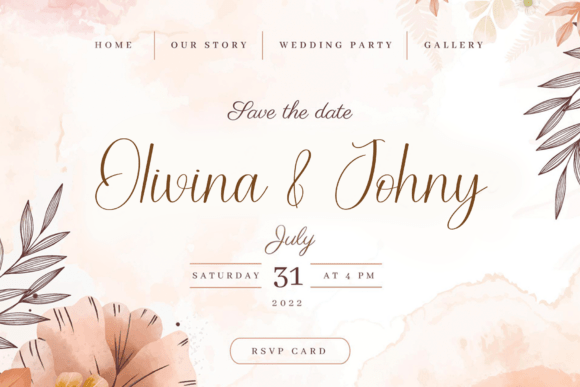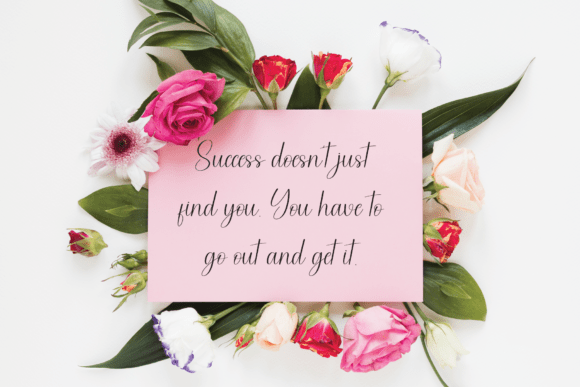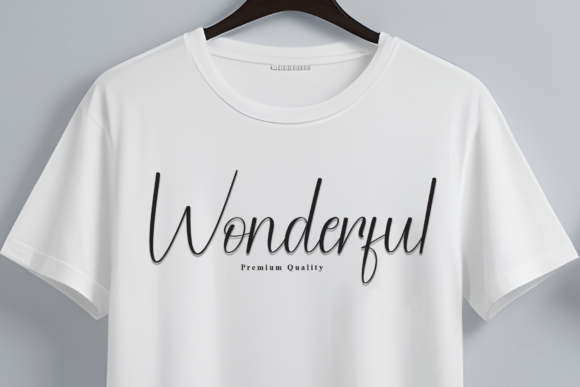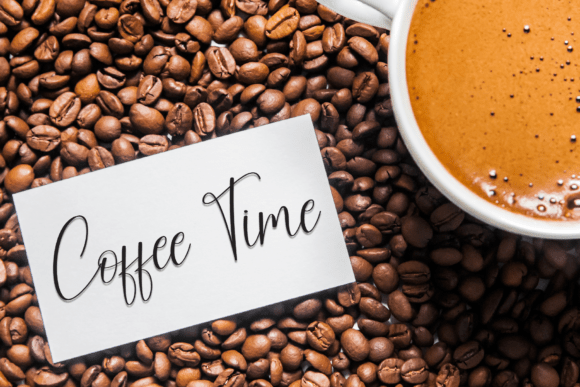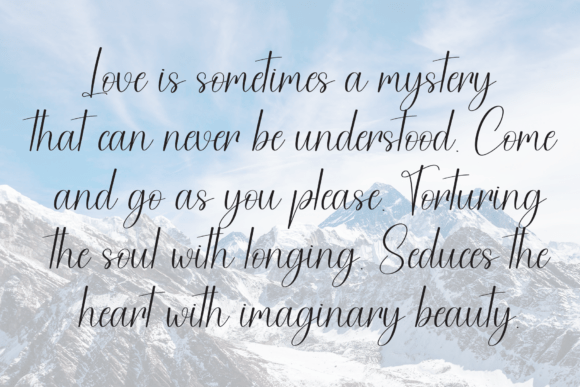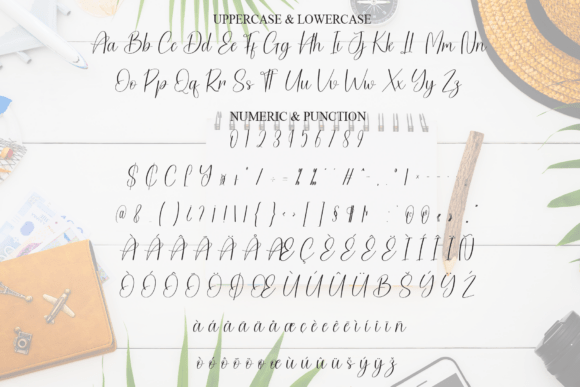
The Elegance of Friday Font: A Designer’s New Best Friend
I’ll never forget the time I was working on a wedding invitation project, and my client asked for a font that was both elegant and personal. I scoured the internet, trying out font after font, but nothing seemed quite right. That was until I stumbled upon Friday Font. This beautiful handwritten script font has been a game-changer for me, and I’m excited to share it with you.
A Personal Review of Friday Font
So, what makes Friday Font so special? Let’s dive into the good stuff! 😊
- ✨ Fluid, natural strokes that mimic authentic handwriting
- ✅ Elegant and sophisticated, yet warm and personal
- 💫 Perfect for wedding invitations, branding, packaging, and more
- 🎨 Highly versatile and adaptable to different design styles
While Friday Font is an amazing addition to any design project, there are a few things to keep in mind:
- 🤔 Some characters may require manual kerning for optimal spacing
- ⚠️ May not be suitable for very small font sizes or body text
The Story Behind Friday Font
Friday Font was designed with the intention of creating a beautiful, handwritten script font that captures the elegance and personality of authentic handwriting. The designer, inspired by the flowing curves and natural strokes of handwritten text, crafted Friday Font to be a versatile and adaptable font for a wide range of design projects.
Q: Is Friday Font suitable for body text?
A: While Friday Font is an amazing font, it’s best suited for headlines, titles, and short paragraphs. For body text, you may want to choose a font with better legibility.